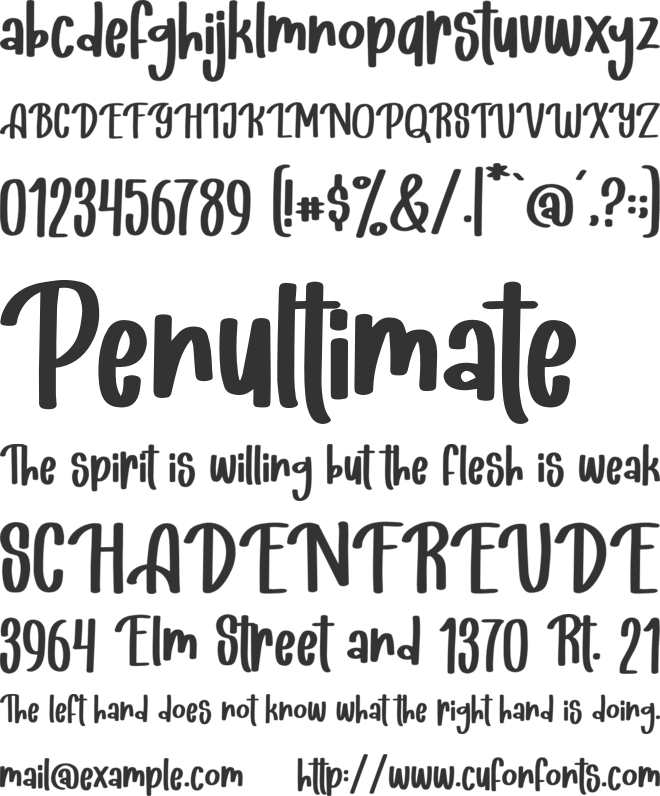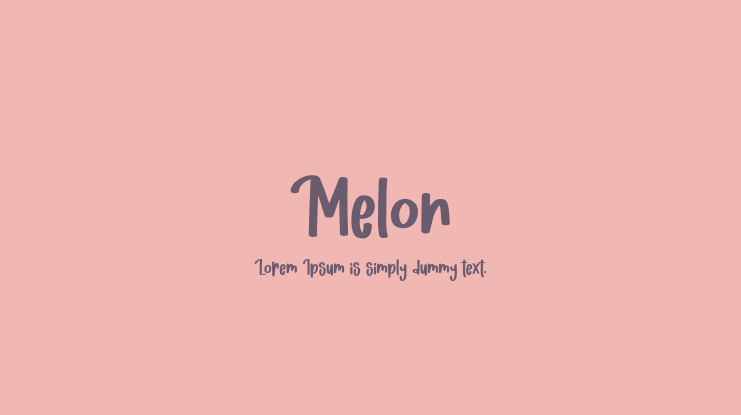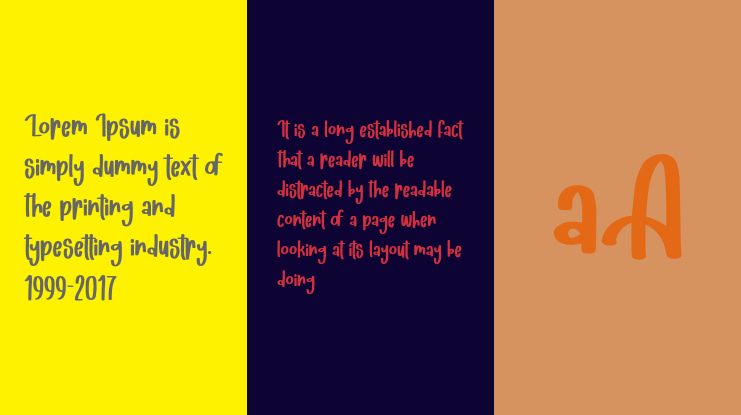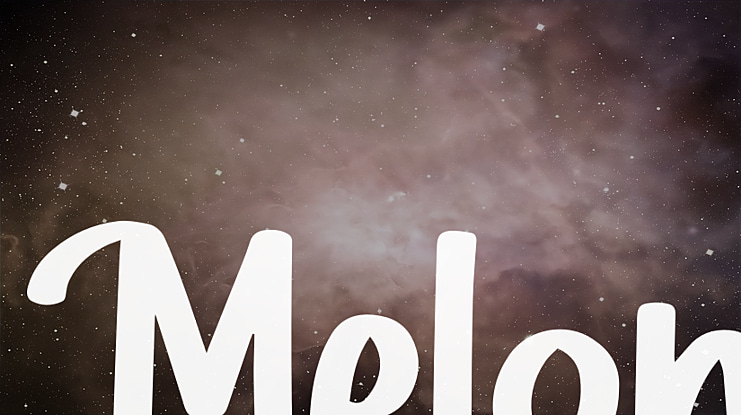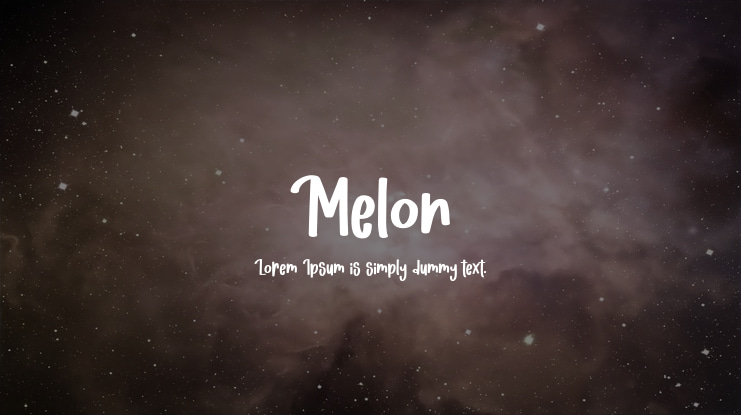
Melon Font
Melon is a fancy font inspired by melon fruit. This font is perfect for various purposes such as quotes, t-shirt designs, flyers, youtube channels, cricut, labels, logos etc.Full Version Download Here :https://typefactory.co/product/melon-fancy-handwritten-font/https://www.creativefabrica.com/product/melon-16/ref/501262/